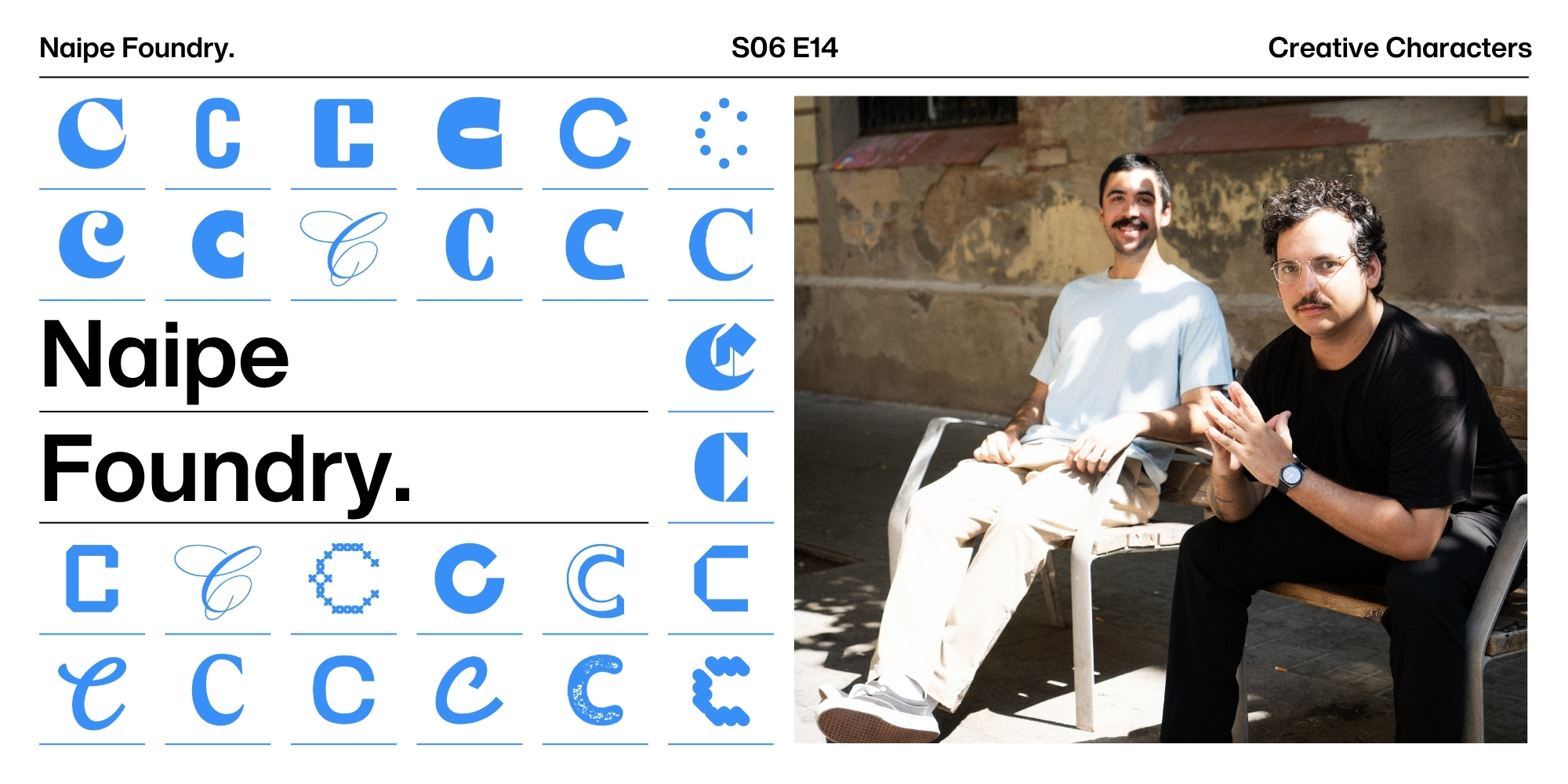
Creative Characters S6 E14: From Rio to Barcelona: Naipe Foundry on making Brazilian-inspired type.
This week, host Dan Rhatigan catches up with Felipe Casaprima and Álvaro Franca of Barcelona-based Naipe Foundry. Felipe and Álvaro met while studying typography in Rio de Janeiro and launched Naipe in 2018 with a goal of telling Brazilian stories through type.
The two tell the story behind their retail font that’s inspired by stone-carved letters at São Paulo’s Pacaembu stadium; share how they built the foundry across continents and time zones; and discuss how community and collaboration have helped their foundry grow.